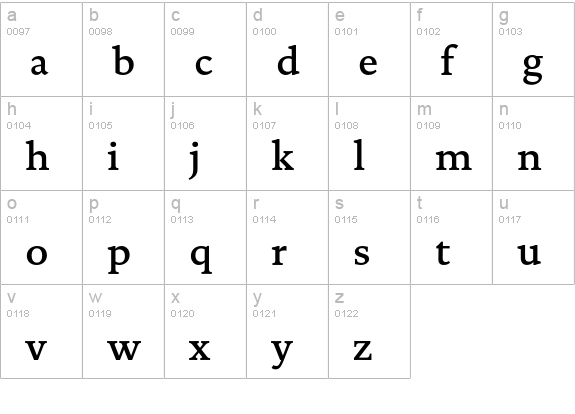
DTLDocumentaST-Medium is a balanced, medium-weight variant in the DTLDocumentaST typeface family \xE2\x80\x94 well suited to sub-headlines, navigation, and balanced editorial work.
DTLDocumentaST-Medium is a versatile and sophisticated font that exudes elegance and professionalism. With its clean lines and sharp edges, this font is perfect for a wide range of design projects, from branding to editorial layouts. Its moderate weight and distinct letterforms make it easy to read while still maintaining a sense of modernity. What sets DTLDocumentaST-Medium apart is that it is available for free download at FontsMarket.com. This means that you can access this high-quality font without any cost, making it a valuable addition to your font library. Whether you are a designer looking for a reliable typeface or a business owner in need of a polished look for your marketing materials, DTLDocumentaST-Medium is sure to impress with its timeless appeal and professional aesthetic. Download it today and elevate your design projects with this exceptional font.